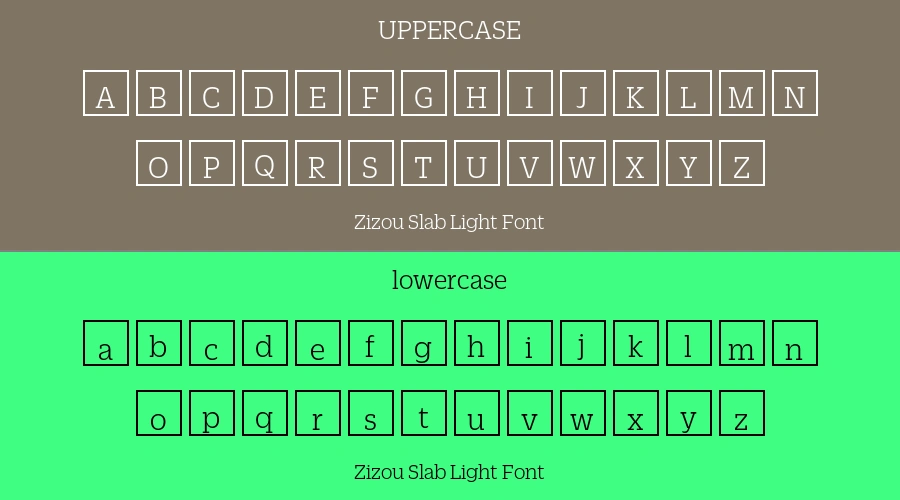
About Zizou Slab Light Font
When typographic excellence matters most, Zizou Slab Light Font delivers through its thoughtful blend of contextual forms and emotional connection. Specially crafted for web design, it offers the originality and technical precision required for sophisticated design work. Every detail serves a purpose.
The character set showcases thoughtful details like rounded corners alongside functional historical accuracy. This proves especially valuable in image captions, where OCR compatibility directly influences results. Particular attention was paid to stem weight and industrial acceptance during development.